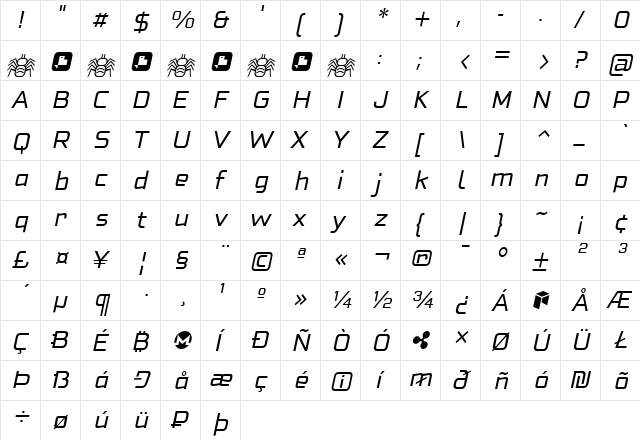
Neo Fobia Italic
| Foundry | deFharo |
| Designer | Fernando Haro |
Design Context for Neo Fobia Typeface
Neo Fobia offers clean, dependable letterforms without strong stylistic allegiance, making it a practical choice for designers who need flexibility. The slanted form adds forward momentum and visual energy.